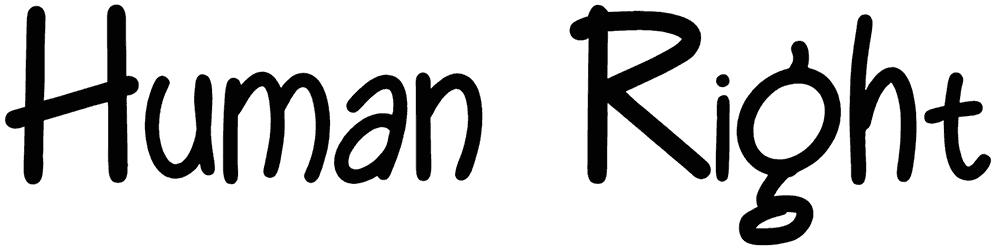
Human Right Font
The first time you utilize Human Right in your creative ideas, you can immediately notice that it makes them look more interesting to the audience and grabs their attention by sharing a sense of personalization, grunge, vivacity, and momentum with them.
Flyers, logos, social media posts, gift cards, or brochures would be the best fields for using this bullet journal font. Just in case you crave to have another handwritten font the same as this font, visit our rich library.